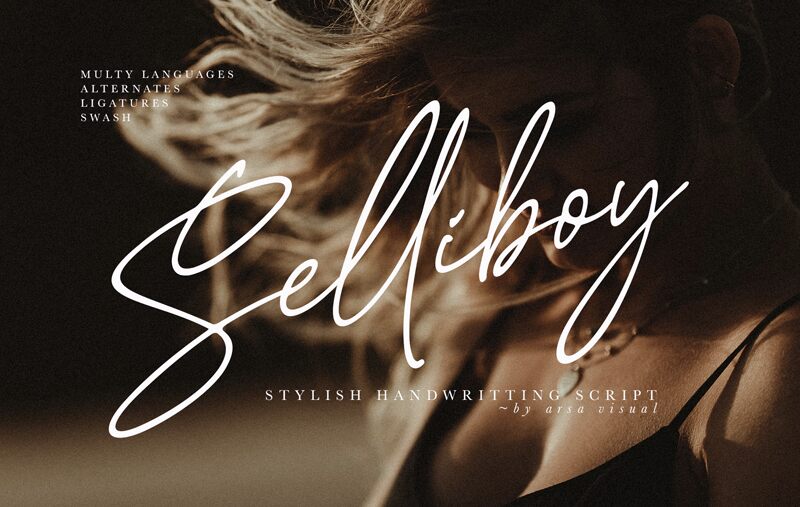
Selliboy, a captivating handwritten font crafted by Gede Sugiantara, exudes a distinct and alluring charm. This light-weight signature style effortlessly blends fluid movements and graceful curves, creating a sense of effortless elegance. The organic, expressive strokes evoke a personalized touch, inviting the reader to engage with the text on a deeper, more intimate level.
Selliboy's versatility shines through, making it a compelling choice for a wide range of design applications. From branding and packaging to editorial layouts and typography-driven designs, this font's unique character has the power to elevate and personalize any project. Its adaptability extends to digital and print mediums, ensuring a cohesive and visually captivating experience across various platforms.